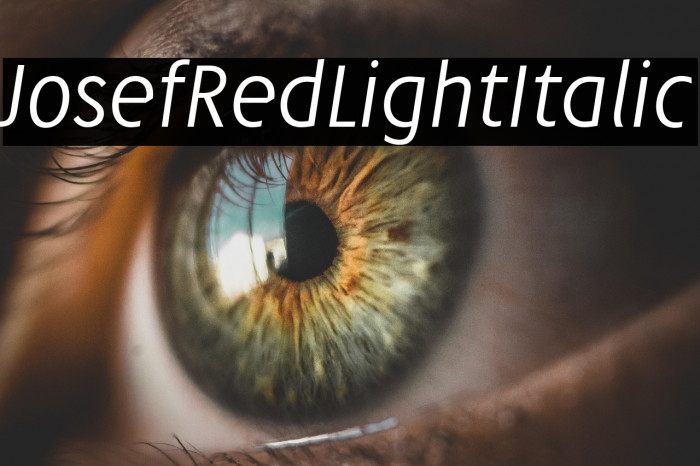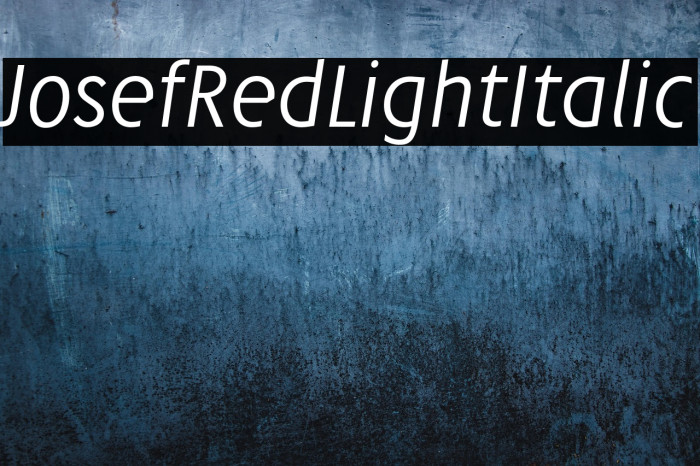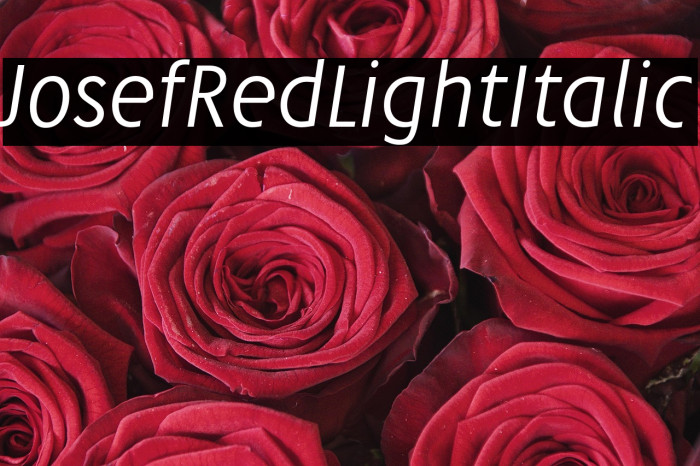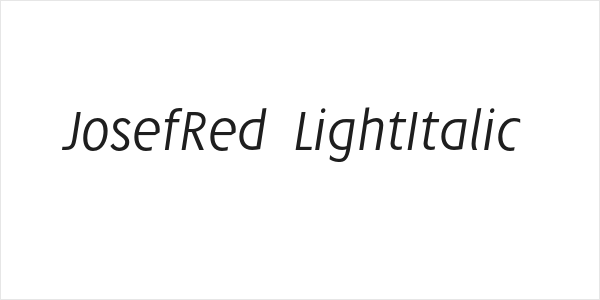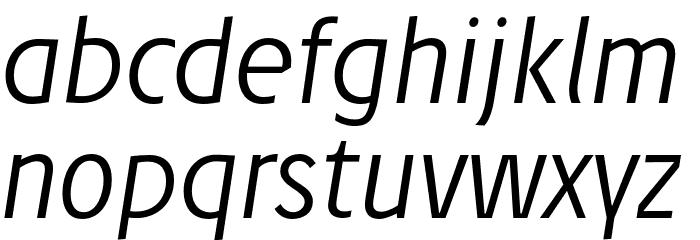
JosefRed-LightItalic Font
JosefRed-LightItalic Description
This font exhibits a clean and modern aesthetic with a slight italic slant, giving it a dynamic and forward-moving appearance. The characters are crafted with a light weight, offering a sense of elegance and subtlety. The sans-serif style ensures readability and a contemporary feel, making it suitable for a variety of applications. The spacing between characters is normal, allowing for clear legibility without appearing too tight or too loose. The overall design is sleek and minimalistic, with a medium contrast in stroke thickness that adds to its refined look.
| Proposed Projects | Ideal for modern branding, editorial design, digital interfaces, and minimalist print materials. |